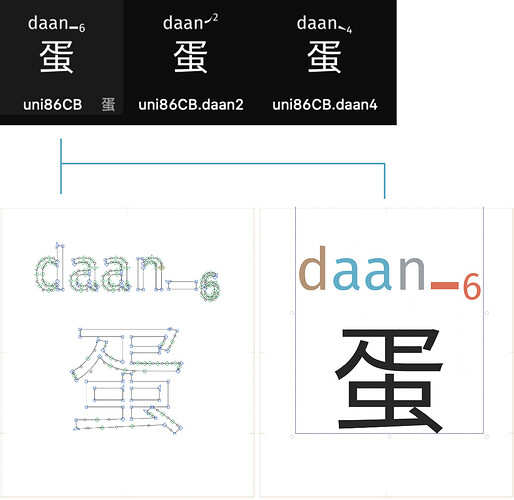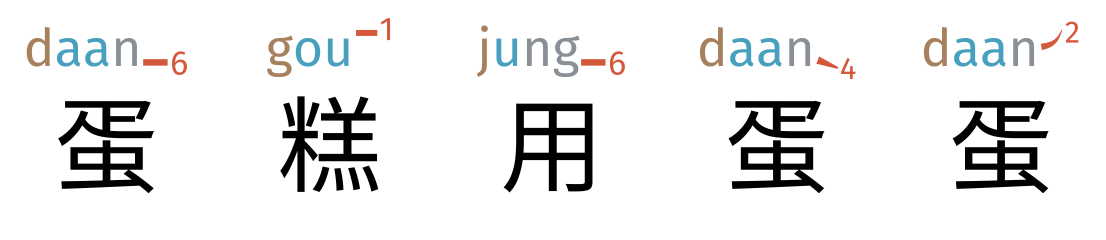
This reference article describes at a high-level how the Cantonese Font works. The text is written with the early access testers in mind: reading this overview will give you better understanding of how to report your findings. Users who have curiosity or special needs will also find this interesting.
Terminologies
Fonts, for most people, are something that “just works”. When you are working with fonts, however, we need to be more precise about the words we use, so we are on the same page. Give it a skim, and come back to this as a reference when needed.
- font refers to a complete, standalone file that the user installs. These files end with a
.ttf(TrueType) extension. For the Cantonese Font, each of these is a particular combination of jyutping size, font-face, and whether it is fixed width (monospaced) or fluid width (where every character occupies only as much space as the jyutping or character demands) - font collection, or collection, is a set of fonts which share the same functionalities but visually looks different. Three sans-serif with different jyutping sizes, all sharing the version number 2.1.12, would be considered a collection.
- character is a linguistic concept, referring to the idea of an ideograph. “蛋” is a character. Characters usually are assigned a unique hexadecimal (base-16) number by the Unicode Consortium; this is called the codepoint. The codepoint for 蛋, for example, is
86CB, which can be looked up at various online sources (like Compart). - glyph is a specific drawn shape of a character. What is notable in the Cantonese Font is that the glyph contains shape information of both the character as well as the Jyutping. The following picture shows three characters, one of which is 蛋; it has five glyphs, since there are five “pictures”.
-
SVG stands for Scalable Vector Graphic, and is a image format that describes visual appearances as mathematical curves (instead of, say, a PNG/JPEG which describes appearances pixel-by-pixel). We prepare a glyph by first drawing it as an SVG.
-
(black-and-white / monochrome) fall-back. Not every font renderer supports OpenType-SVG (the standard we use). In particular, Microsoft champions its own color font format. To ensure some graceful degradation, each glyph is supplied with both a colored (SVG) image as well as a “colorless” format. We call this the fall-back (or path instruction).
-
word / compound is a linguistic concept, referring to combination of characters. “蛋糕” is a word. In Chinese it is not always clear what is a word: is “分工合作” one, two, three, or four words? Especially when it is ambiguous, I tend to favor compound over word.
-
(word) segmentation is the procedure where a sentence is split into words. For CJK (Chinese-Japanese-Korean) languages which does not use space to mark off word boundaries, this is quite important and affects the semantics (meaning) and pronunciation (sound). As an example, 學生會好慘 can be alternately segmented as 學生會|好慘 (student union suffers) or 學生|會|好慘 (students will suffer), and 會 would follow to carry a different sound of
wui2orwui3. -
features / rules are programmatic instructions that are embedded inside a font. They originated to resolve clashing Latin character combinations, such as
fandl, by specifying a rule to replace this combination offlwith a new combined (ligature; “stuck together”) glyph. I abuse these in the Cantonese Fonts to make it look “smart”.
What’s Inside a Font
A font comprises of glyphs and features.
Glyphs
Every glyph is of a particular single character and its jyutping. Continuing with 蛋 as our example, the character has three glyphs (蛋 can be pronounced in three ways in Cantonese), and each glyph has a color SVG and monochrome fall-back.
The Cantonese Font contains 29,146 CJK characters and 39,419 SVG + 39,149 fall-backs. It has an additional 1,000 standard Latin glyphs, and another 10,850 word/compound phantom glyphs. We’ll get to the phantom glyphs with the Features.
Features
Features can be thought of as programming instructions embedded into fonts. They look like
sub f l by fl;
which means “substitute consecutive f and l with a glyph named fl”.
One of the rules associated with 蛋, for example, is
sub uni86CB period d a a n two by uni86CB.daan2;
which means when someone types 蛋 and then .daan2, it should replace the whole seven characters with a glyph named uni86CB.daan2.
A group of feature/rules is called a lookup, and lookups are applied to the input one-after-another.
The Cantonese Font use features in four ways:
1. Spelling (type for alternate pronunciation) features
The above shown
sub uni86CB period d a a n two by uni86CB.daan2;
enables selection of a particular pronunciation. 蛋 has three of these to let the user choose the pronunciation; note that one can coerce the default jyutping (daan6) by typing 蛋.daan6; this is what enables the Hydrated Cantonese markup format to “fix” a pronunciation.
Printing caveats
Colors in SVG are specified as RGB colors (for light-emitting screens) and printing uses CMYK ink to subtract light. Expect the printed colors to be somewhat more dull than what you see from the screen.